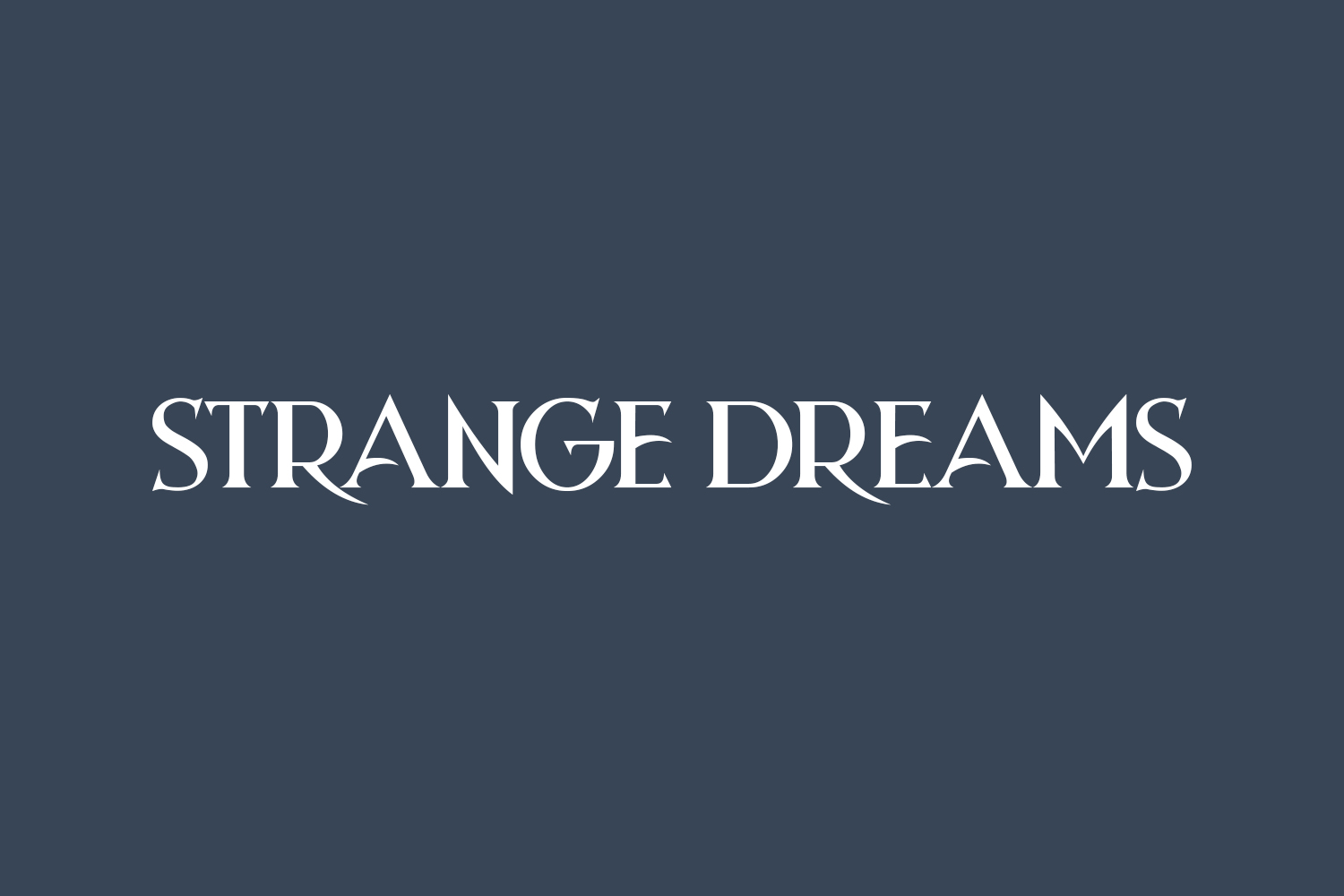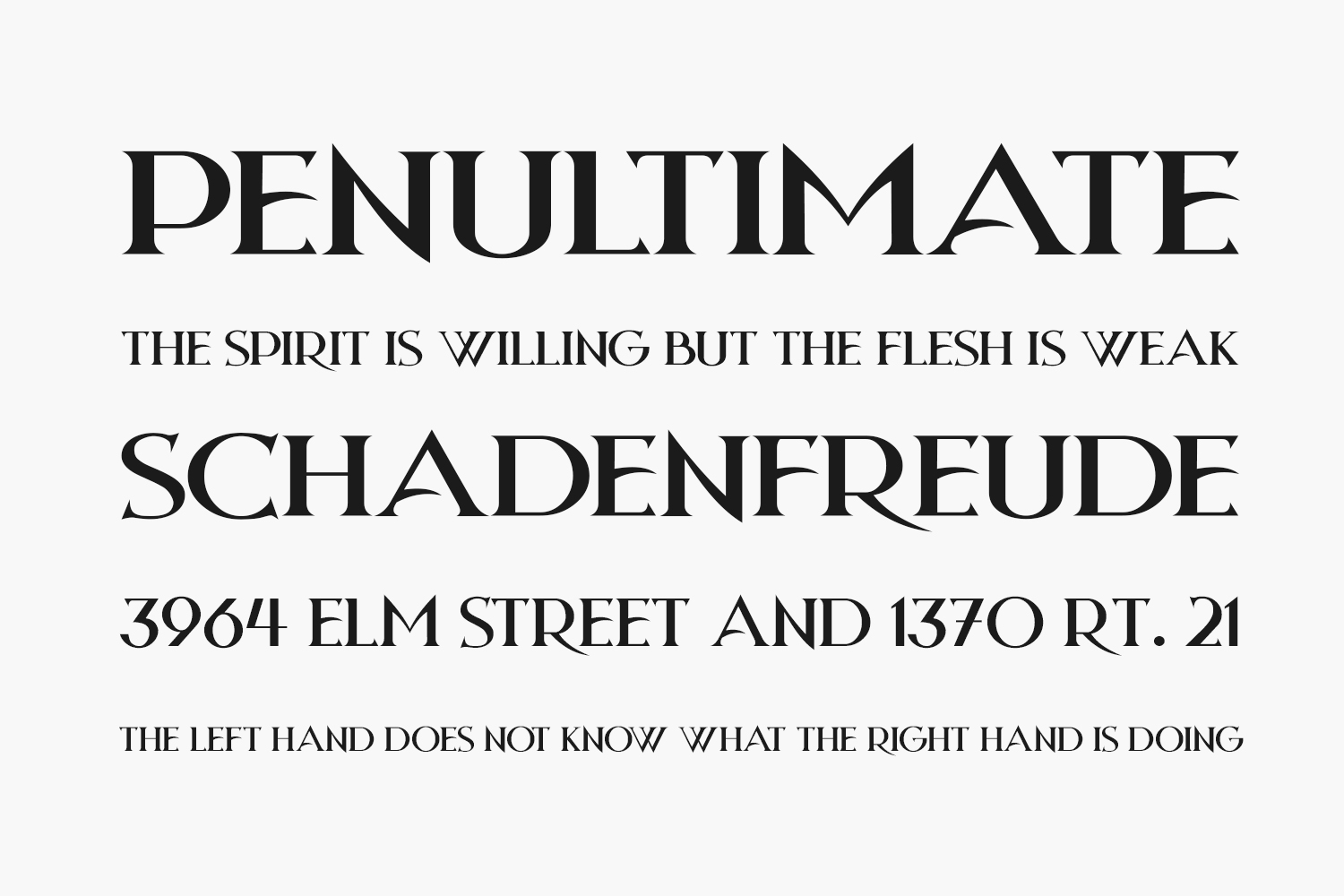
Step into a surreal world of creativity with the Strange Dreams Free Font Family. With its elongated swoops and unique curves, this stylish sans-serif font is the perfect choice for projects that demand a touch of eccentricity. Its bold lines and whimsical shapes will add a dreamlike quality to your designs, making them truly unforgettable.
Strange Dreams Regular The quick brown fox jumps over the lazy dog
Strange Dreams Italic The quick brown fox jumps over the lazy dog